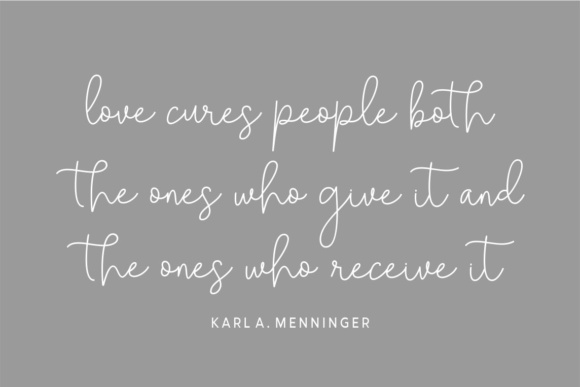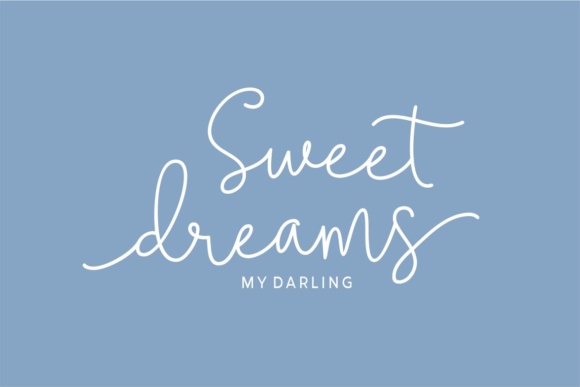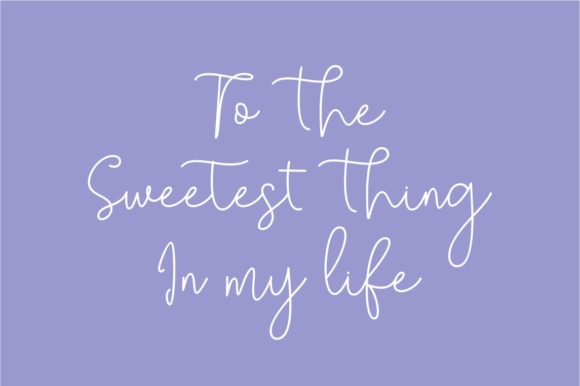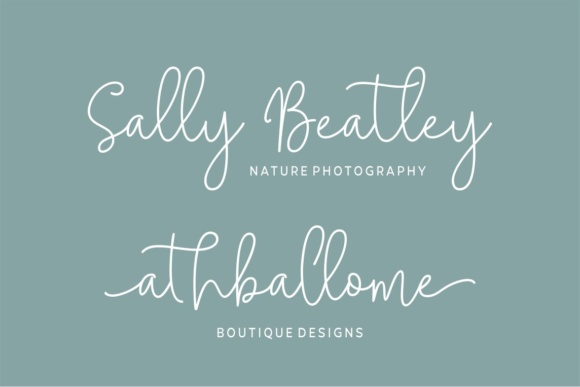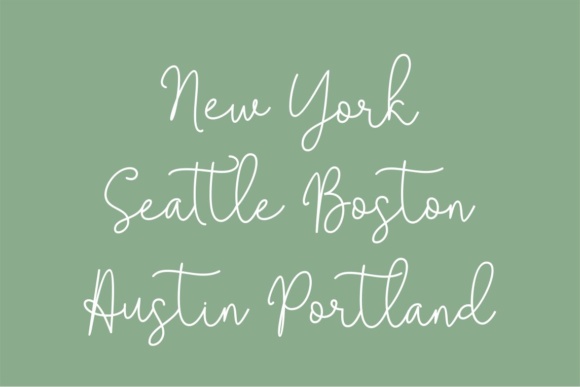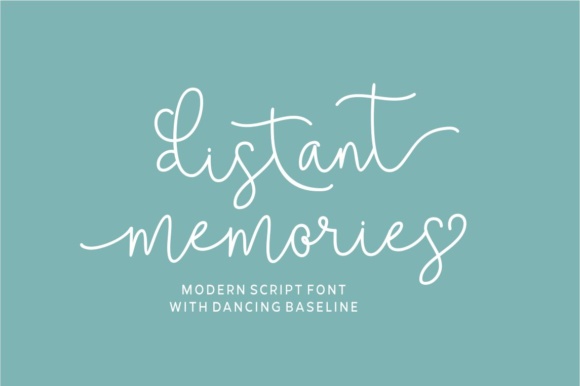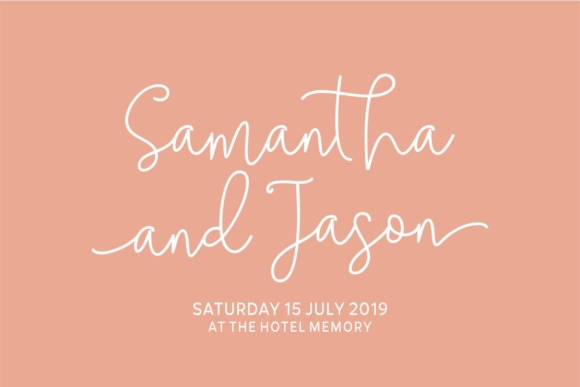
Solidar Font
About Solidar Font
The Solidar is a modern monoline script font. It has a casual yet elegant style ad includes lots of beautiful alternates and swashes.